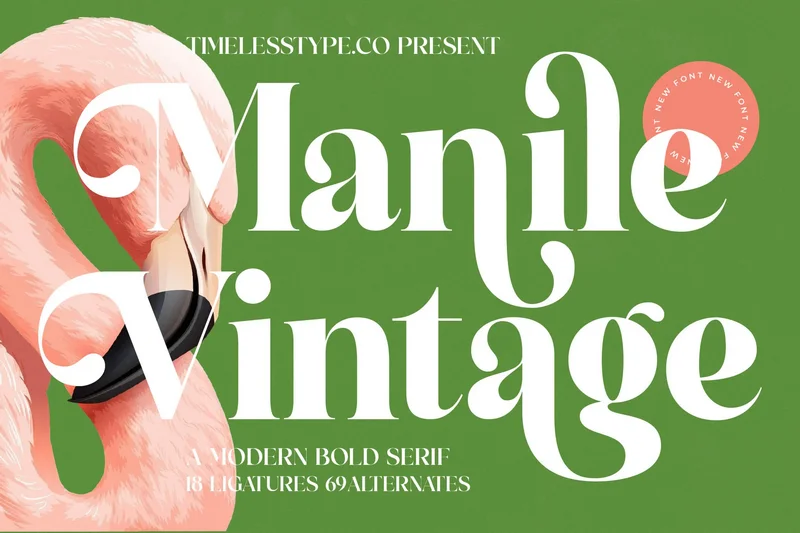
Manile Vintage – Modern Bold Serif
Manile Vintage is a modern bold serif font that blends retro charm with refined elegance. With stylish ligatures and versatile alternates, this typeface is perfect for logos, packaging, posters, invitations, editorials, and branding projects. Its bold yet graceful character makes Manile Vintage a timeless choice for both digital and print designs, adding sophistication and a classic vintage feel to any creative work.